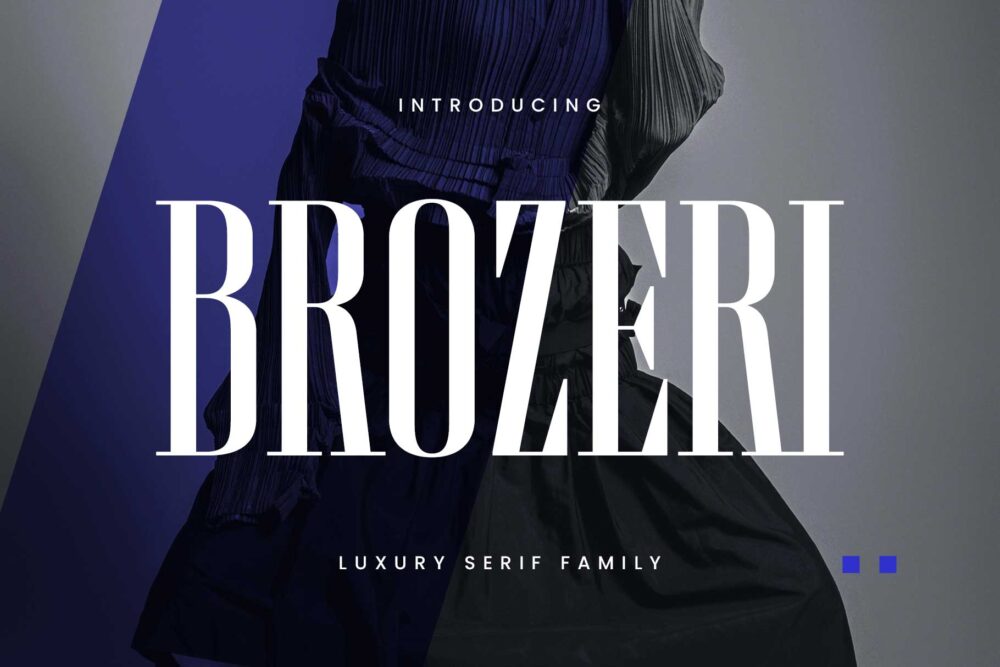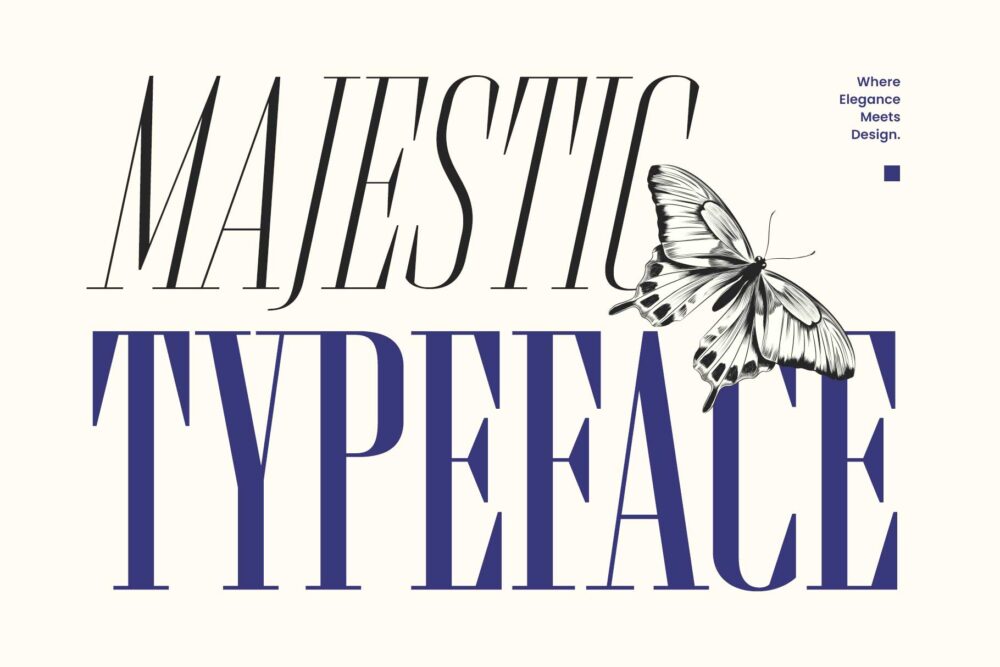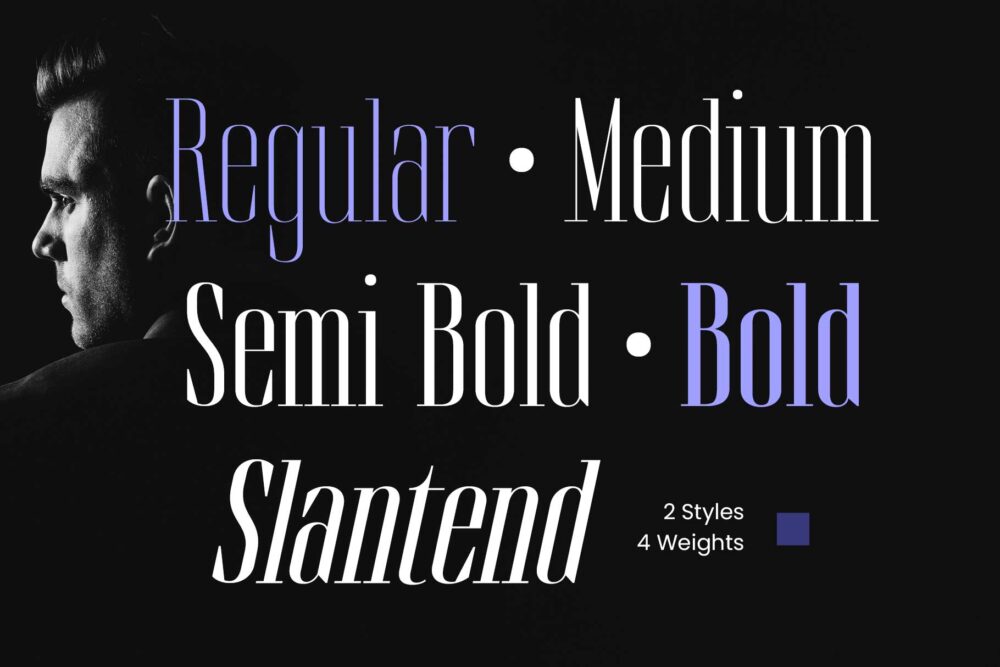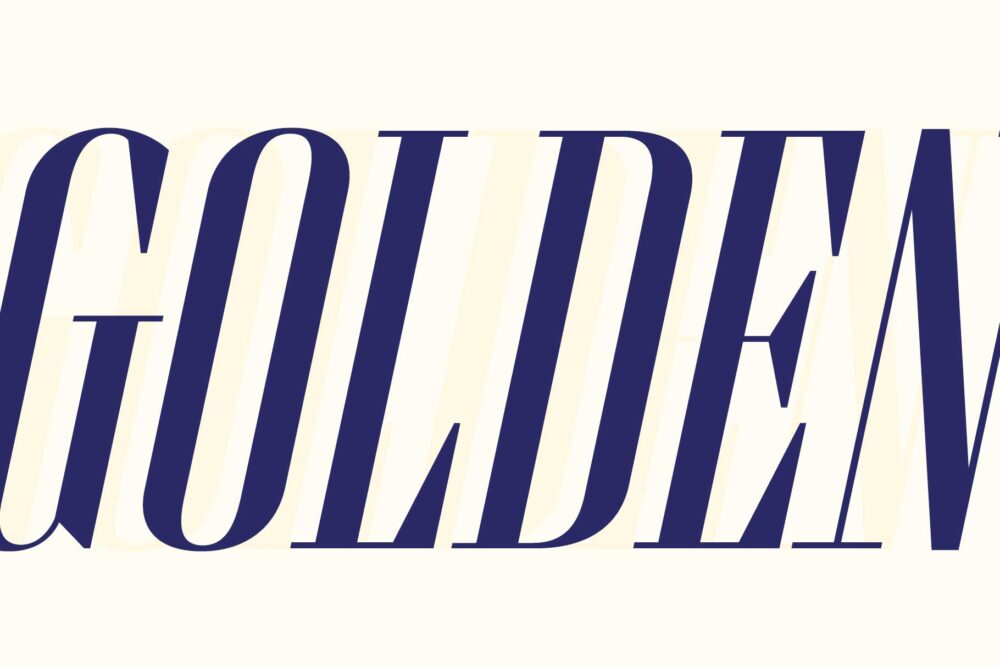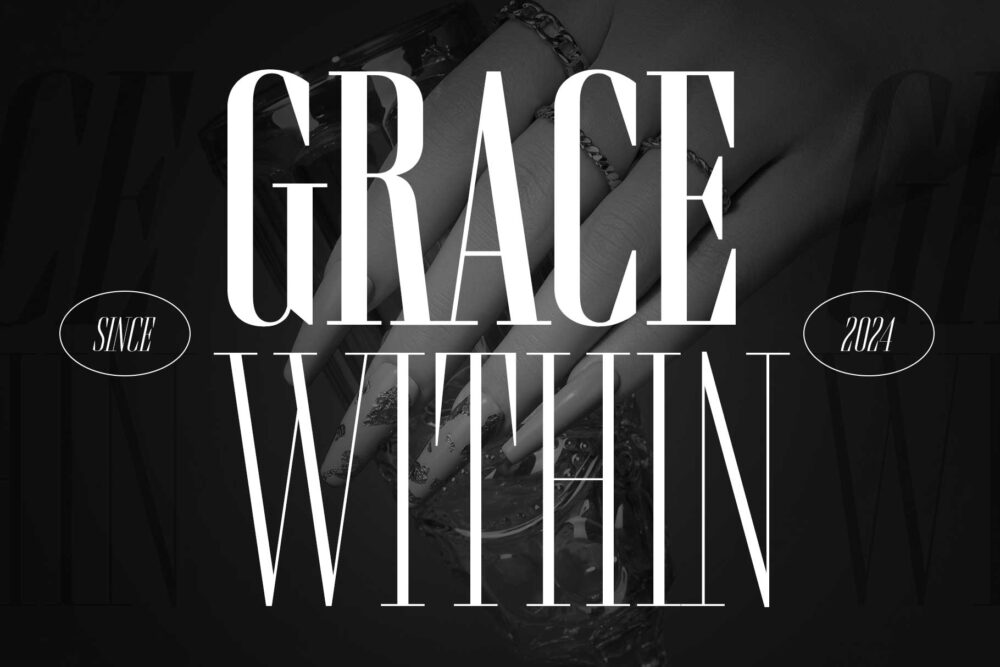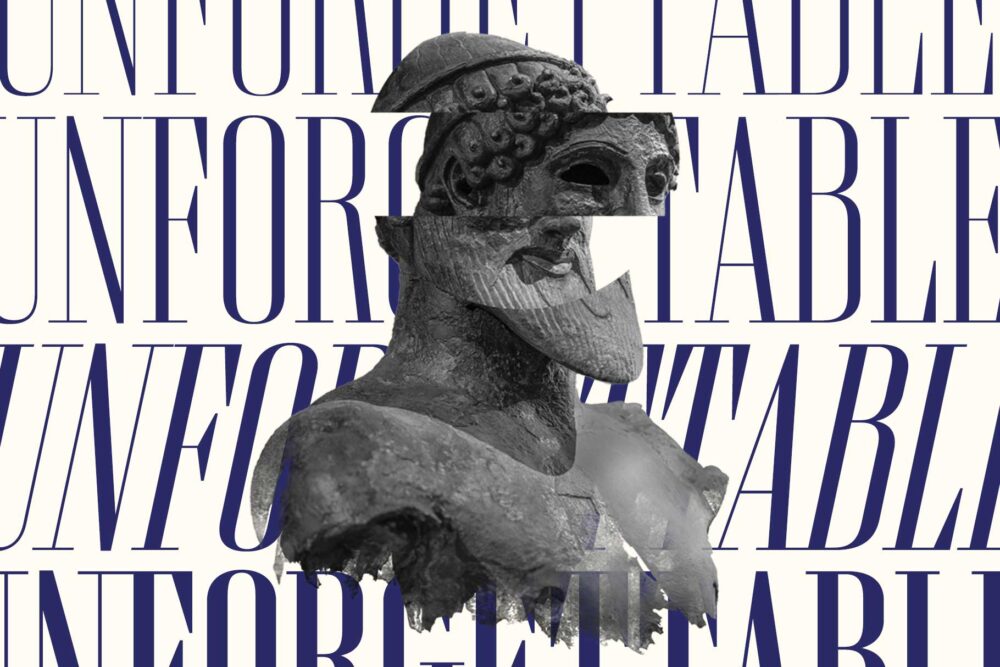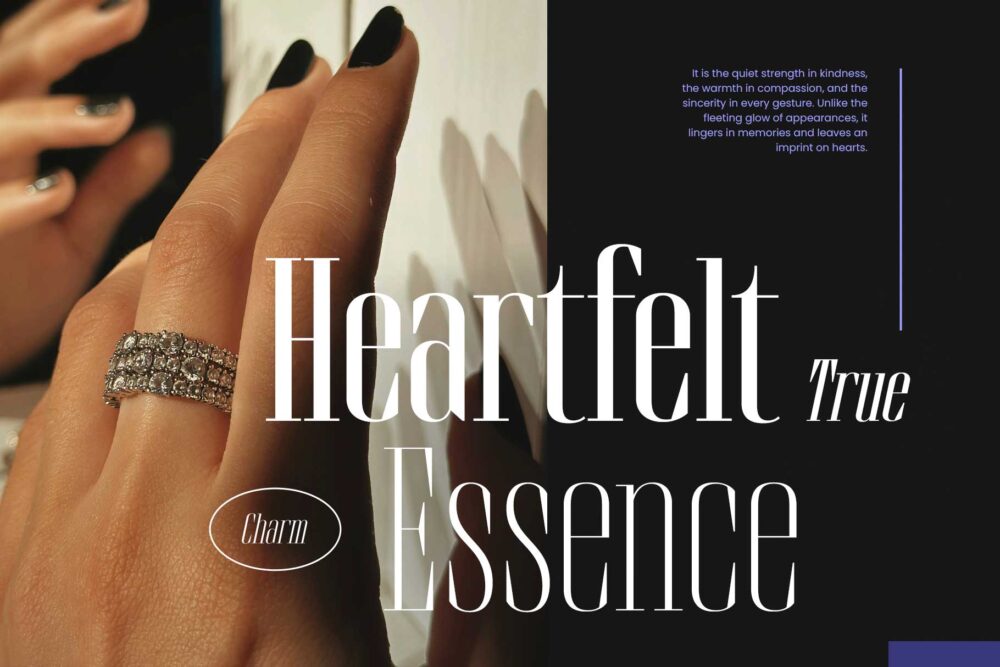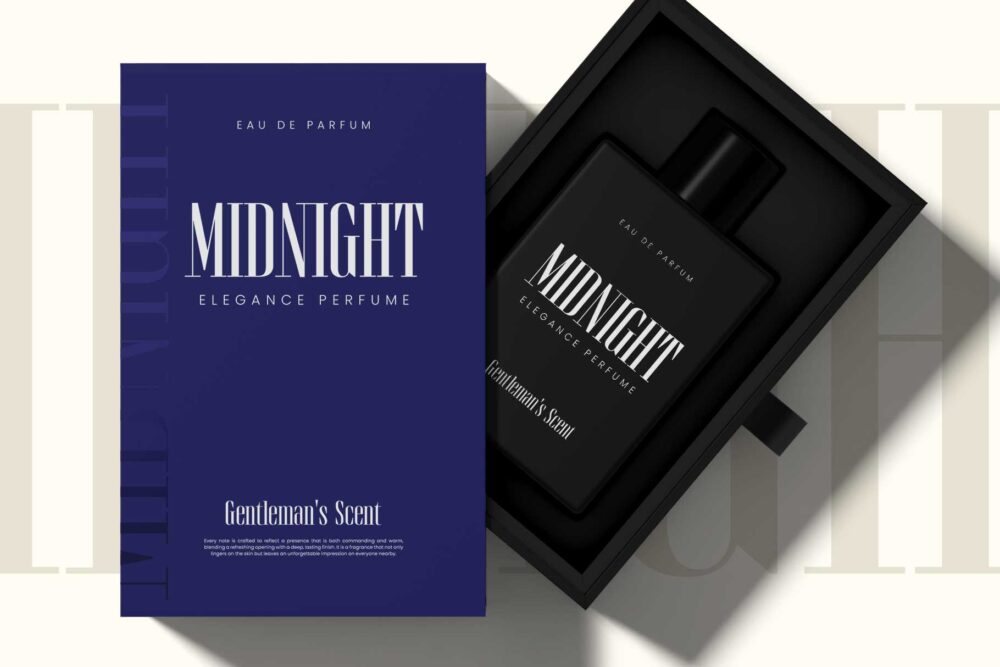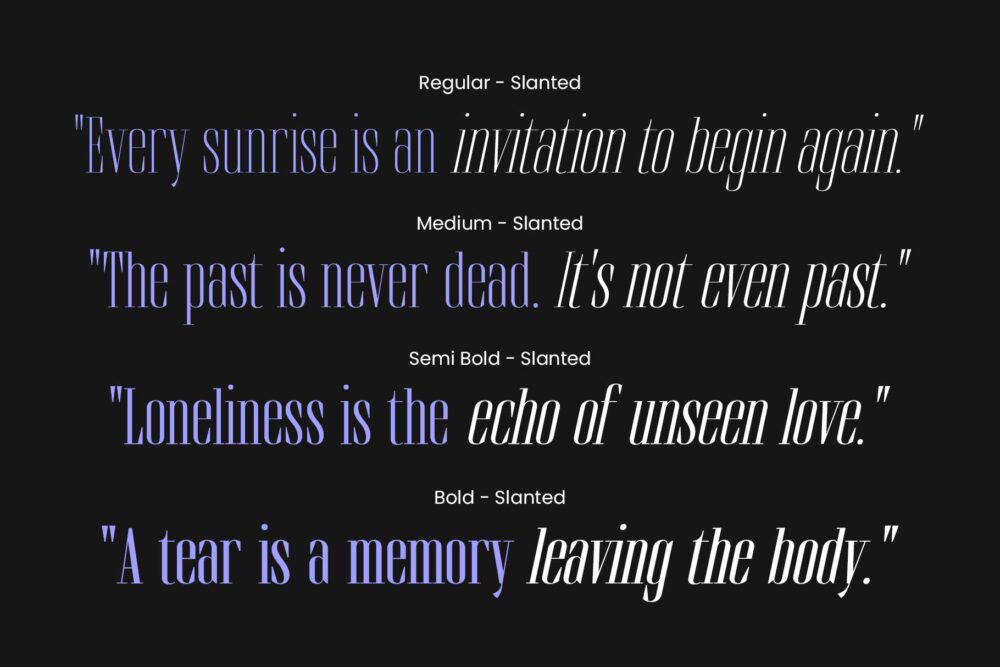
Brozeri modern serif typeface for headlines and fashion design
Brozeri Regular
Brozeri Medium
Brozeri Semi Bold
Brozeri Bold
Brozeri is a condensed serif typeface with bold contrast and striking contours. Its firm, eye-catching serifs bring a sense of elegance and authority to any design.
Drawing inspiration from early 2000s typography, Brozeri is available in 4 weights with matching slanted styles—balancing confidence, casual flair, and courageous expression. Each weight carries its own character, making it perfect for headlines, labels, fashion branding, logos, posters, magazines, editorials, and more.
This versatile font family also includes stylistic alternates, giving you the flexibility to create designs that feel both classy and distinctive.
Fonts featured:
• Uppercase
• Lowercase
• Numbers & punctuation
• Symbols
• Stylistic alternates
• Standard ligatures
• Multilingual support.
Brozeri – Casual Serif Family